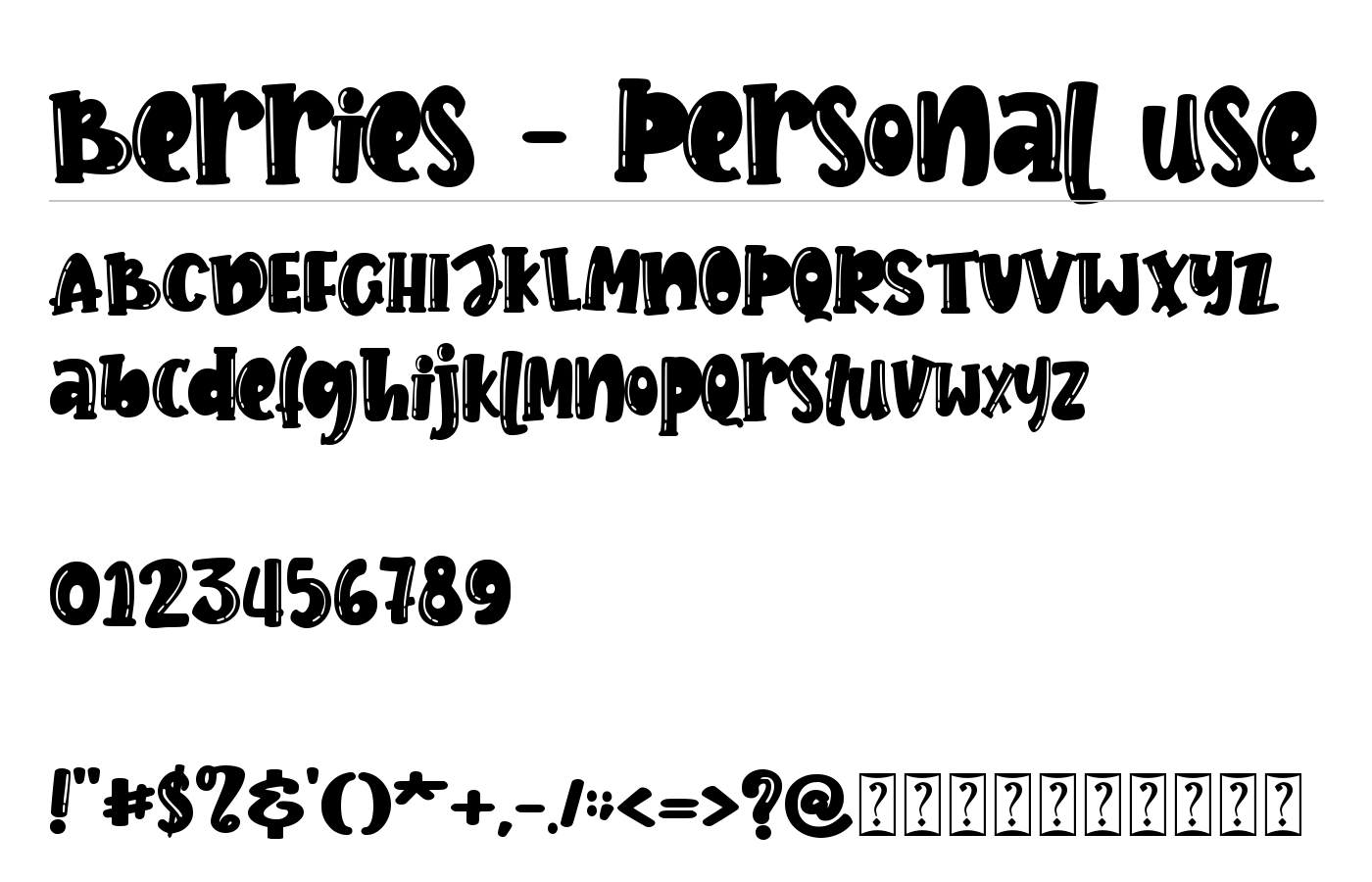
Berries is a playful and bold sans serif font with a hand-drawn feel, featuring thick, rounded strokes and quirky, irregular letterforms that bring a lively, informal charm. Its upright style, uneven shapes, and strong personality make it ideal for fun, creative projects like children's books, casual branding, and eye-catching headlines where a friendly, approachable vibe is desired. This font works best in display settings to add a unique, whimsical touch without sacrificing readability.
Berries - Personal use Font
About Berries - Personal use Font
| Font family | Berries - Personal use Font |
| Designer | Letterara |